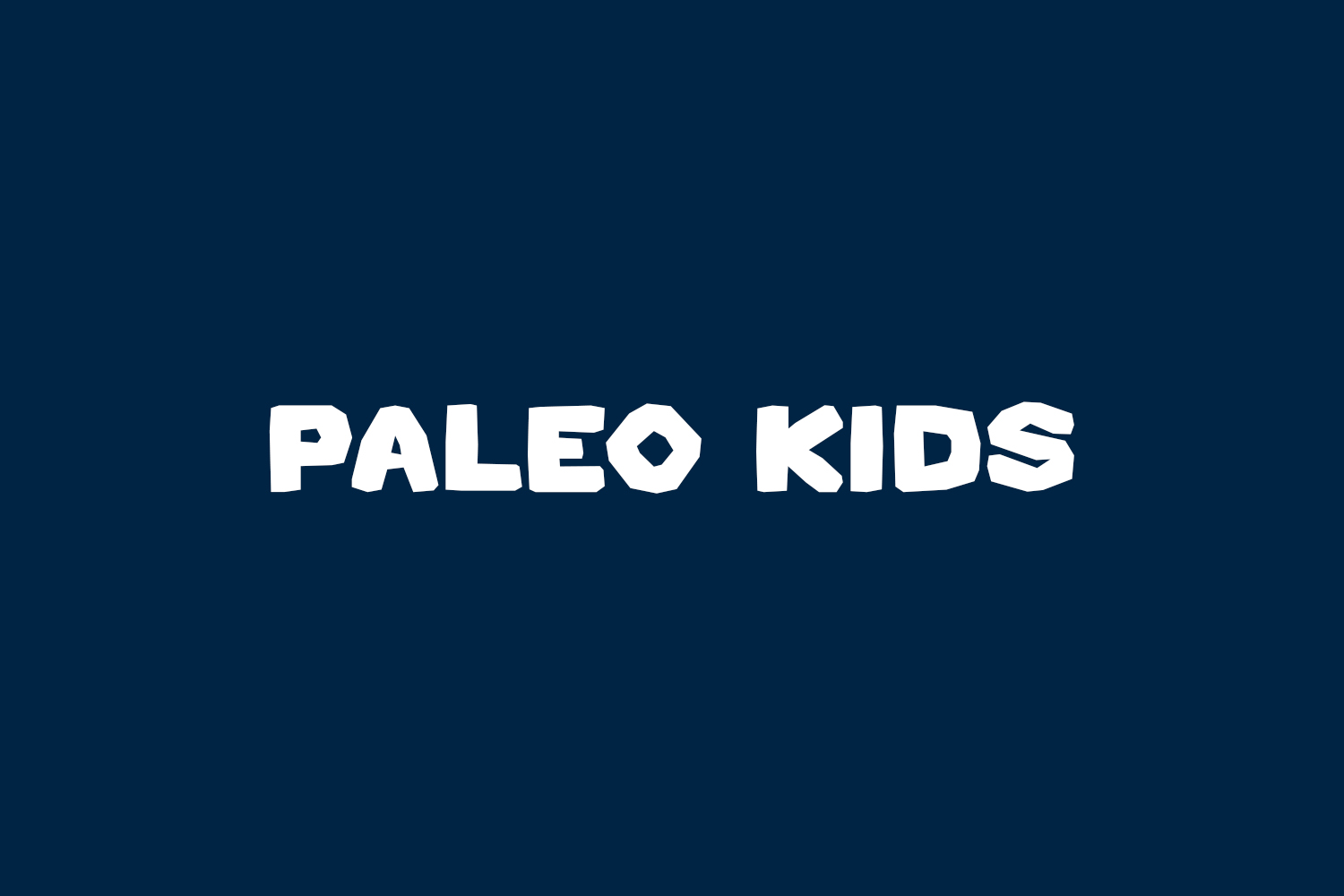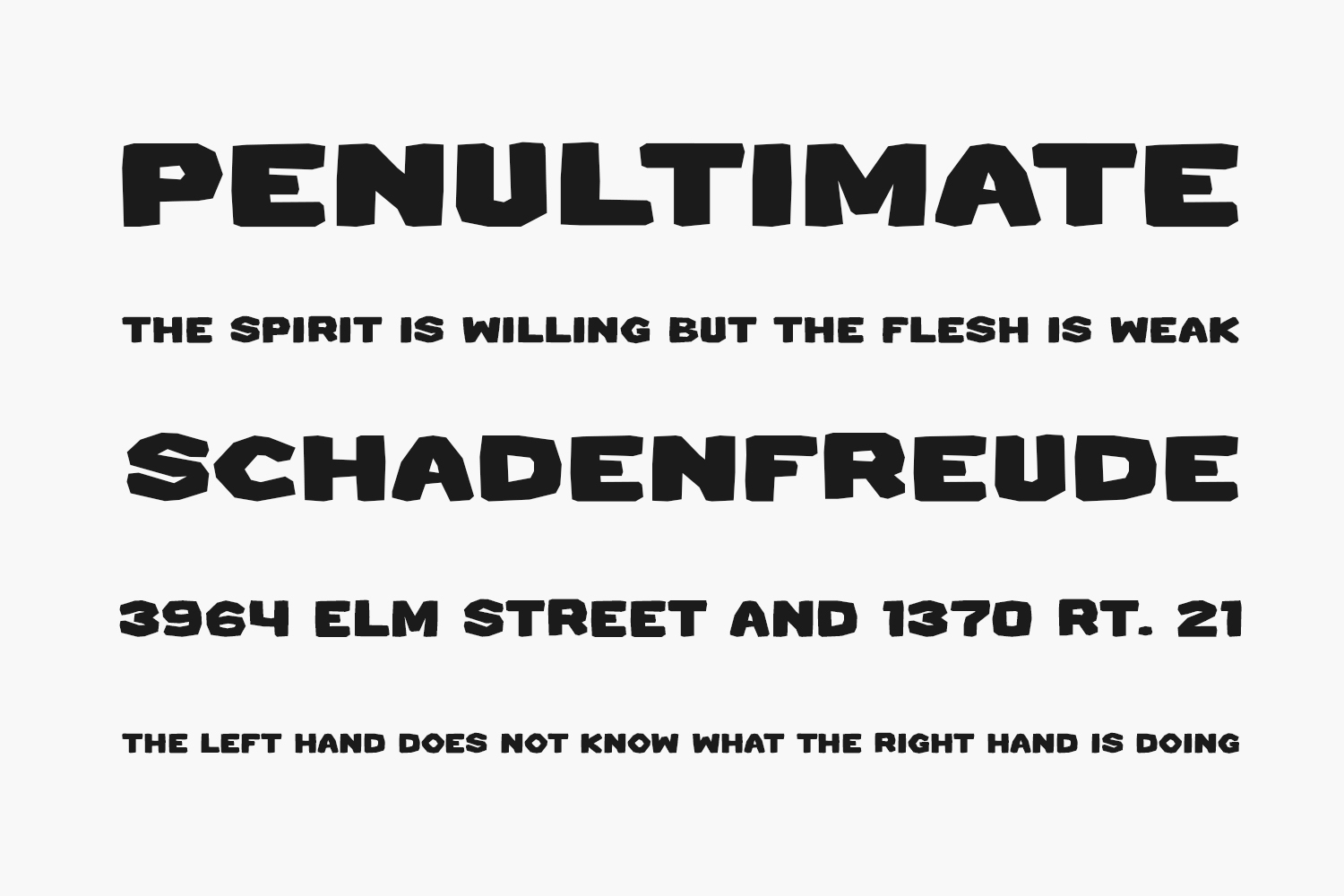
Paleo Kids Free Font is a chunky lettered and friendly display font. It embodies playfulness and authenticity and is the perfect choice for any children’s activity or school project. Paleo Kids Free Font was designed by Tokopress and is free for personal use only. Please purchase the full version for commercial use.